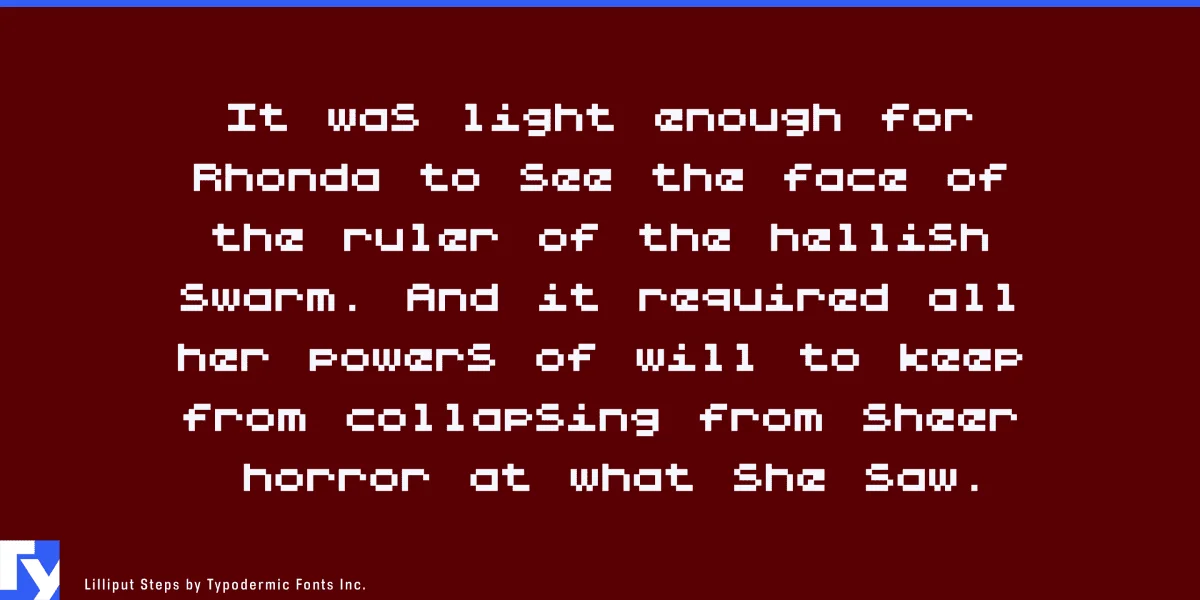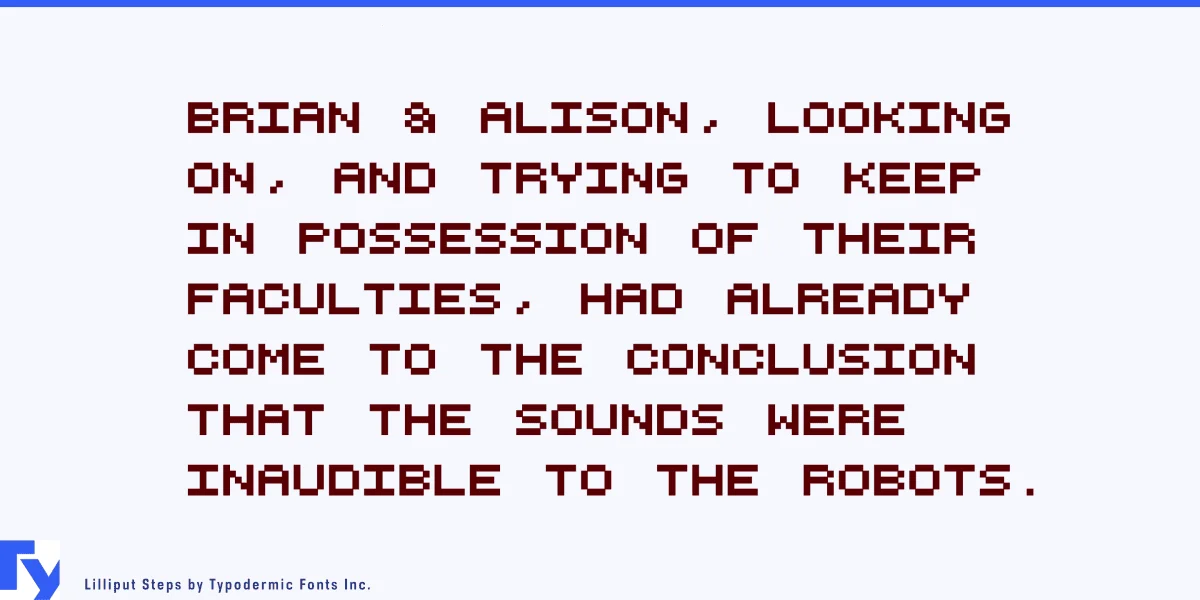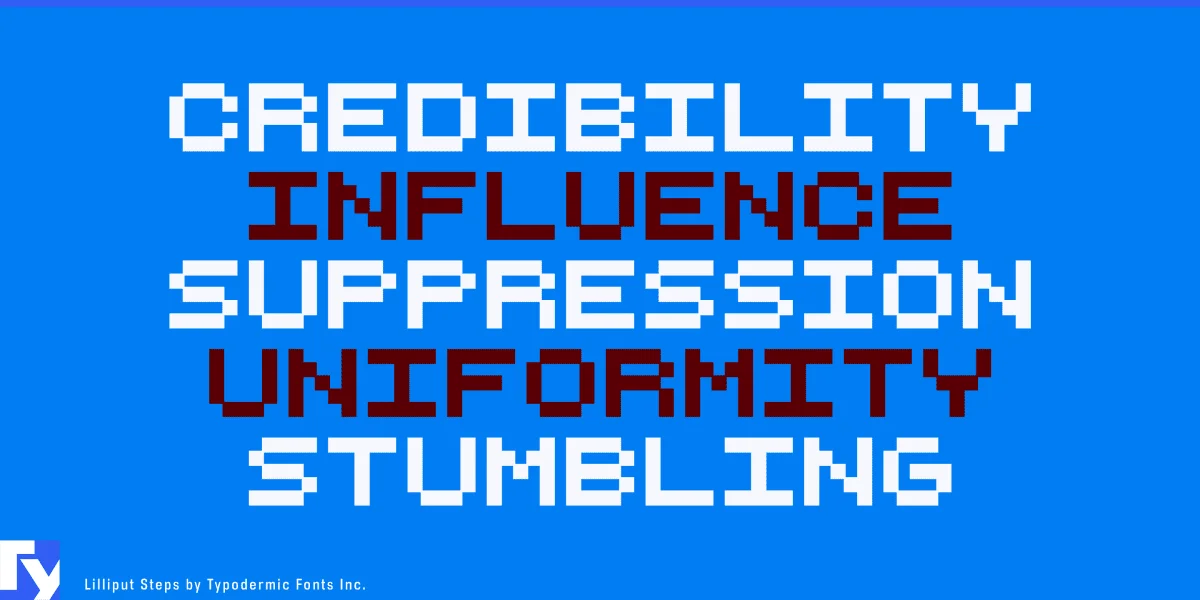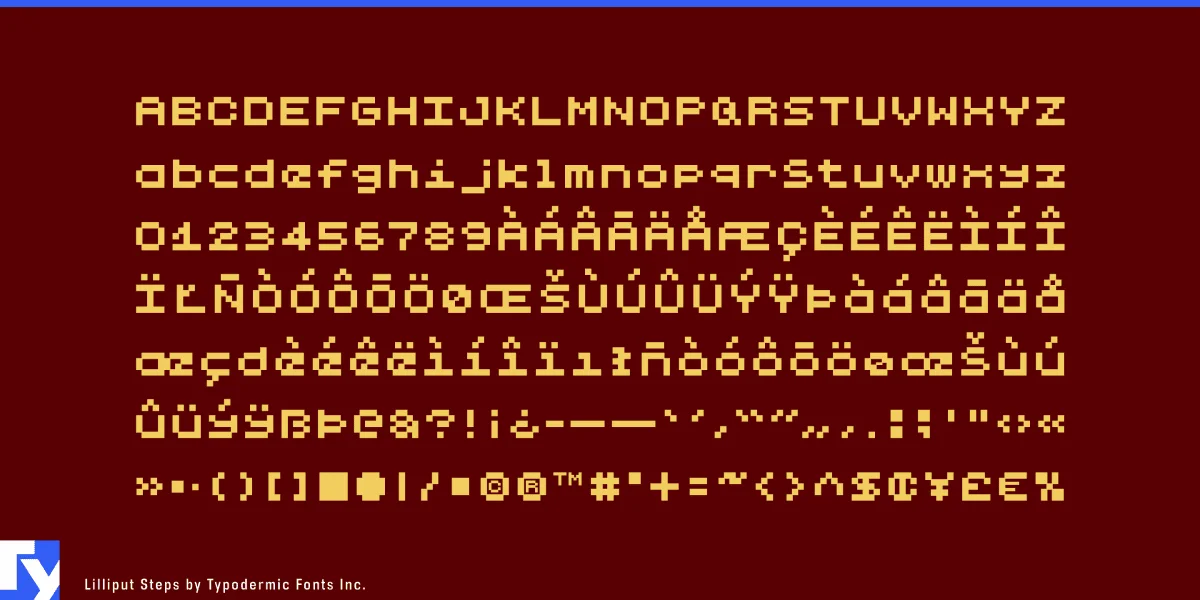
Lilliput Steps is a pixel font inspired by the classic video game Earthbound. Give your message a low-resolution purity of voice. Some Latin-based European writing systems are supported, including the following languages. Afaan Oromo, Afar, Afrikaans, Albanian, Alsatian, Aymara, Basque, Bemba, Bikol, Breton, Cape Verdean, Creole, Catalan, Cebuano, Chamorro, Chavacano, Danish, Dawan, Dholuo, Dutch, English, Estonian, Faroese, Fijian, Filipino, Finnish, French, Frisian, Friulian, Galician, Genoese, German, Guadeloupean Creole, Haitian Creole, Hiligaynon, Icelandic, Ilocano, Indonesian, Irish, Italian, Jamaican, Kaqchikel, Kikongo, Kinyarwanda, Kirundi, Lombard, Low Saxon, Luxembourgish, Makhuwa, Malay, Ndebele, Neapolitan, Norwegian, Novial, Occitan, Papiamento, Piedmontese, Portuguese, Quechua, Rarotongan, Romansh, Sango, Saramaccan, Sardinian, Scottish Gaelic, Shona, Sicilian, Silesian, Slovak, Slovenian, Somali, Sotho, Spanish, Swahili, Swazi, Swedish, Tagalog, Tetum, Tshiluba, Tsonga, Tswana, Tumbuka, Uzbek (Latin), Venetian, Võro, Walloon, Waray-Waray, Wayuu, Xhosa, Yapese, Zapotec Zulu and Zuni.